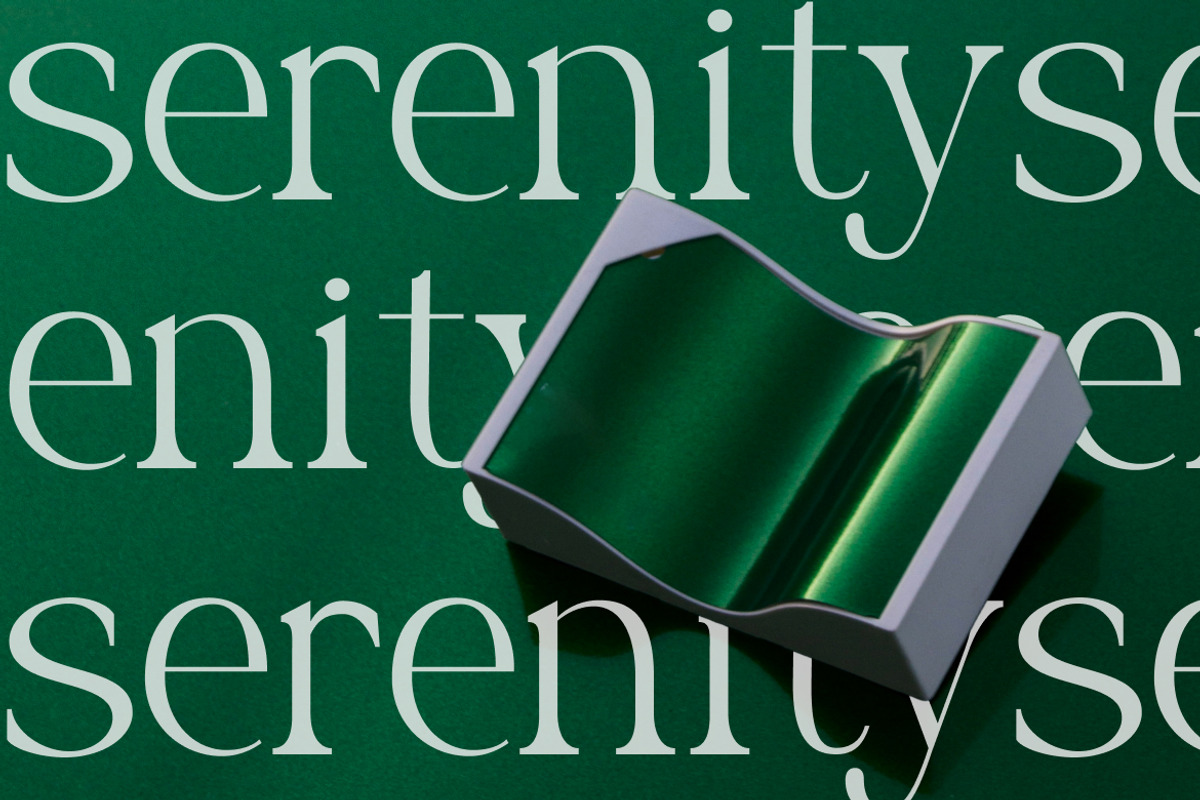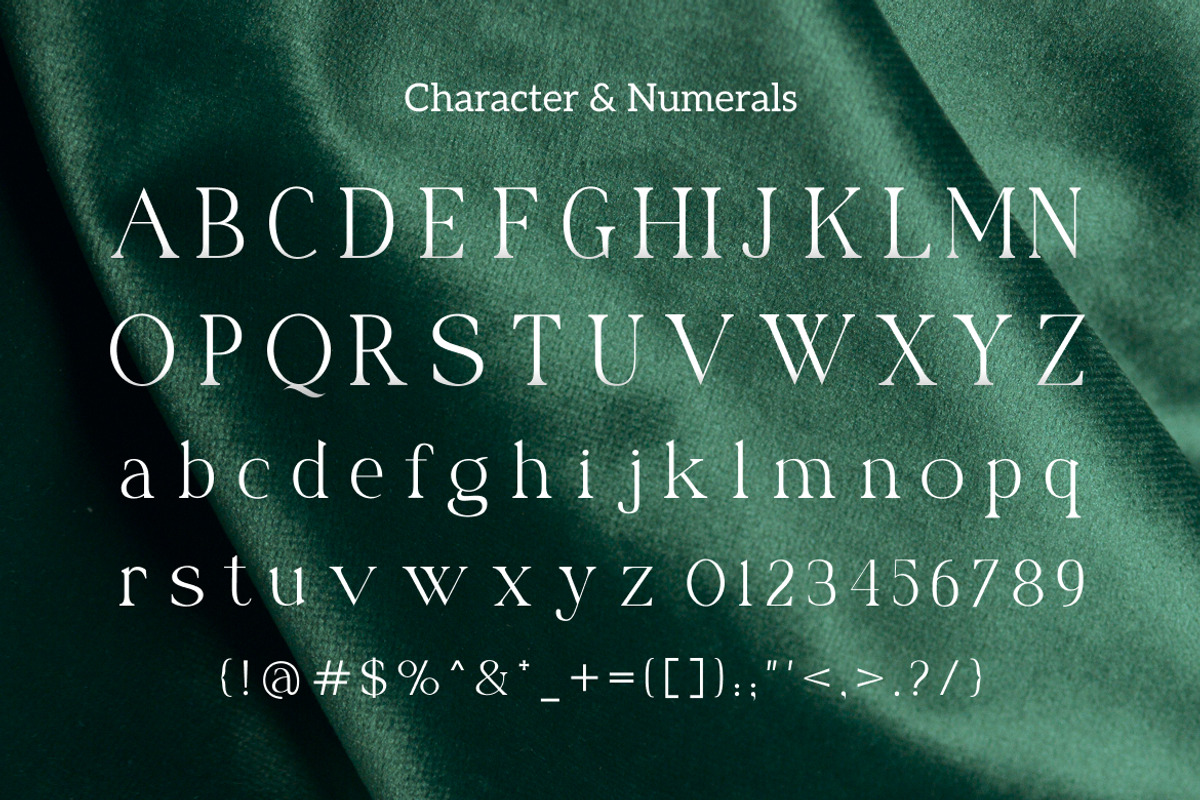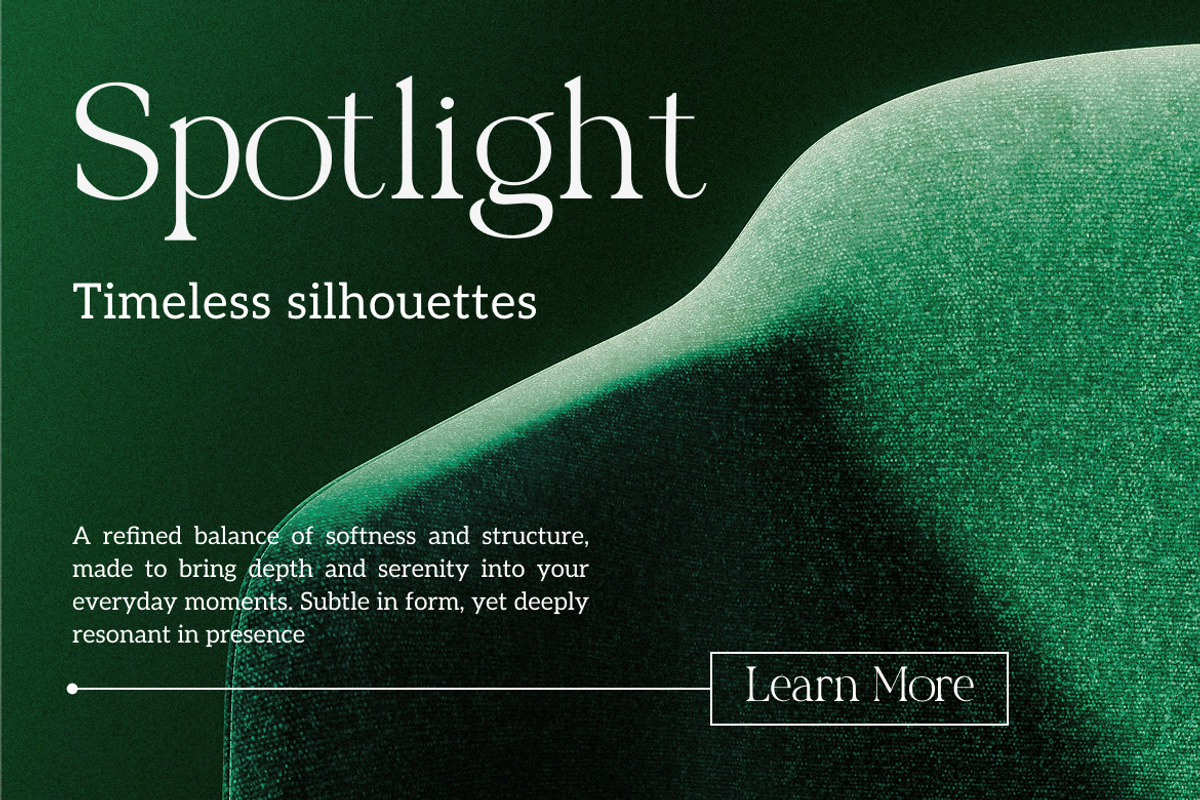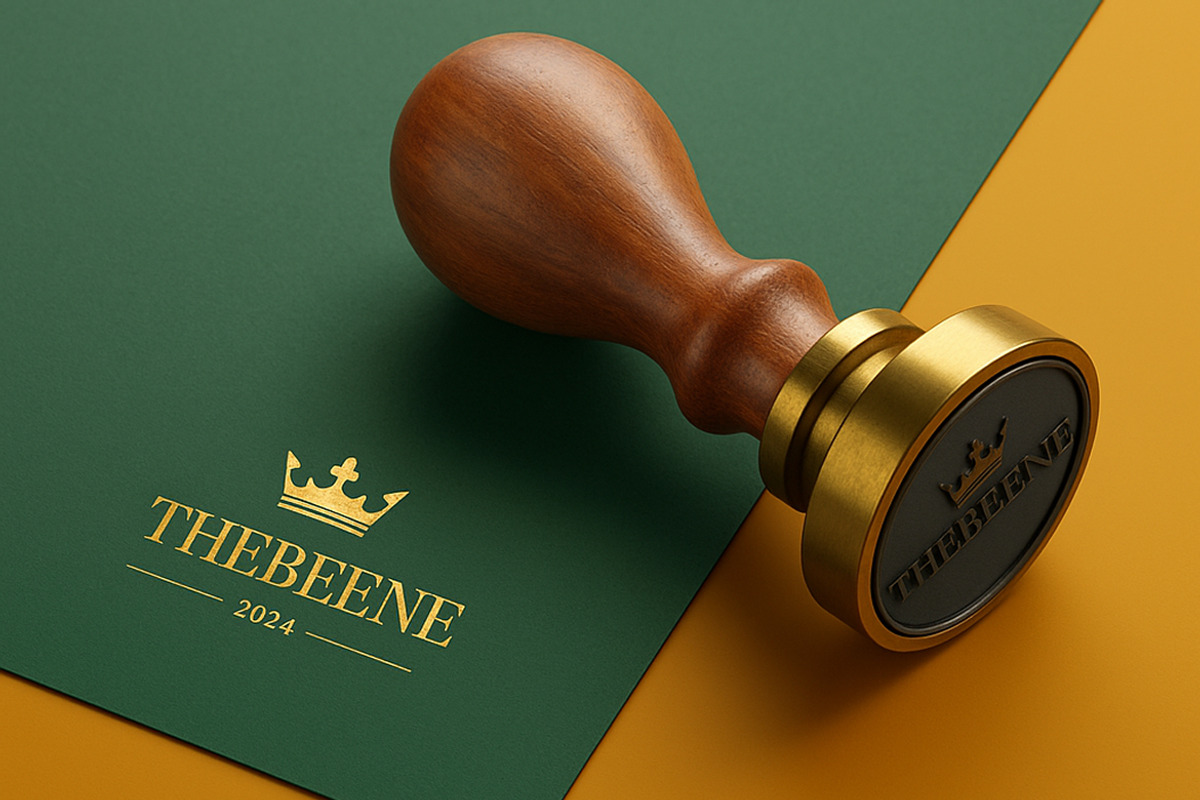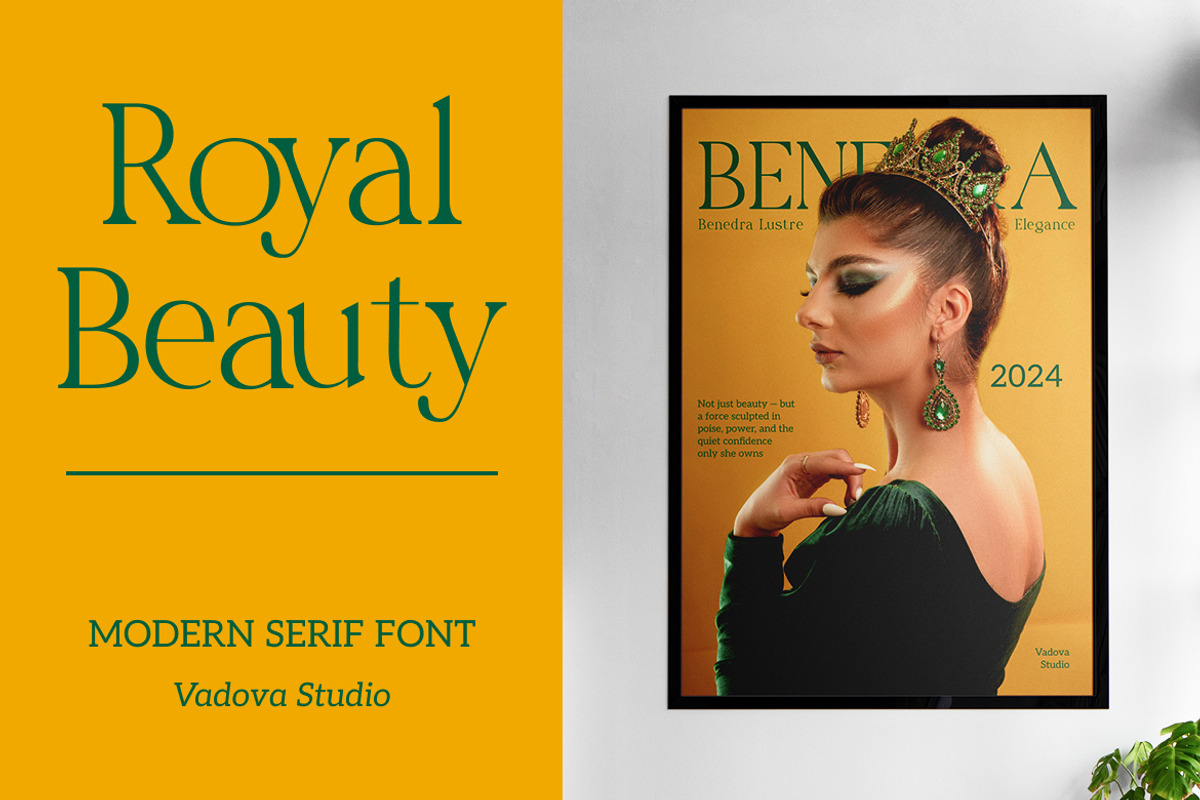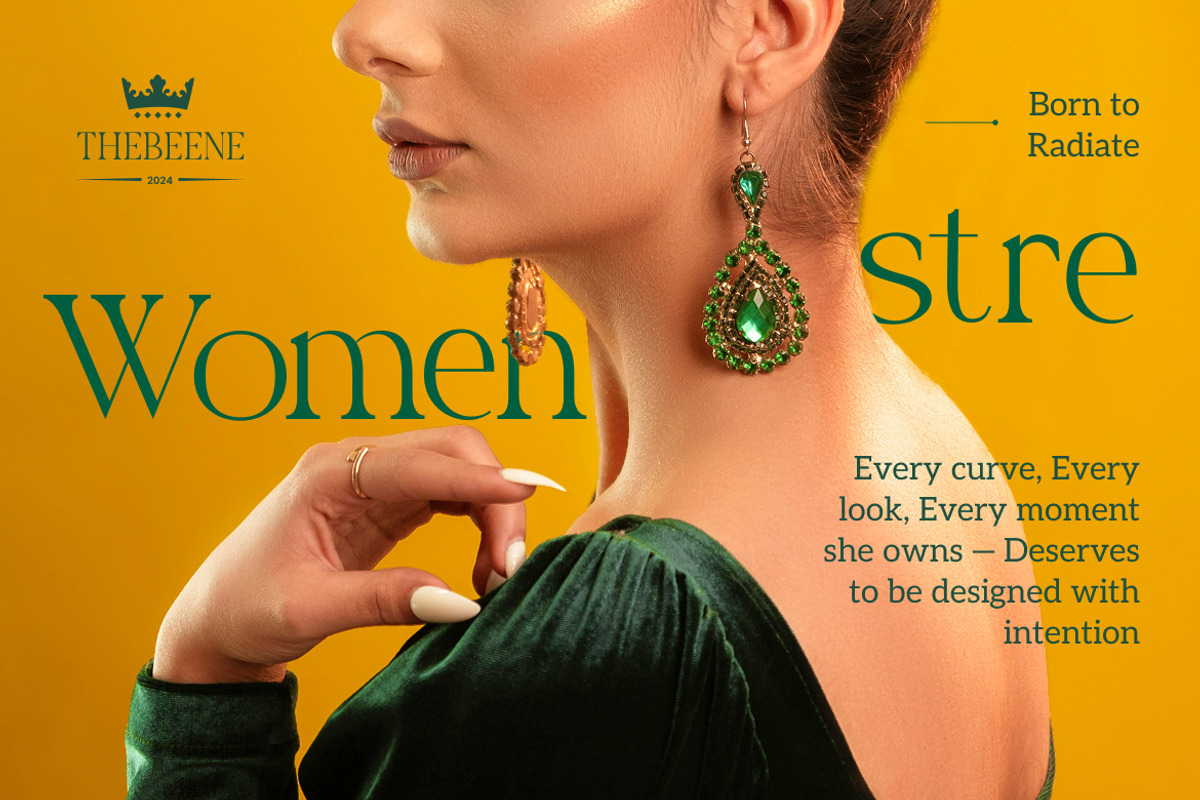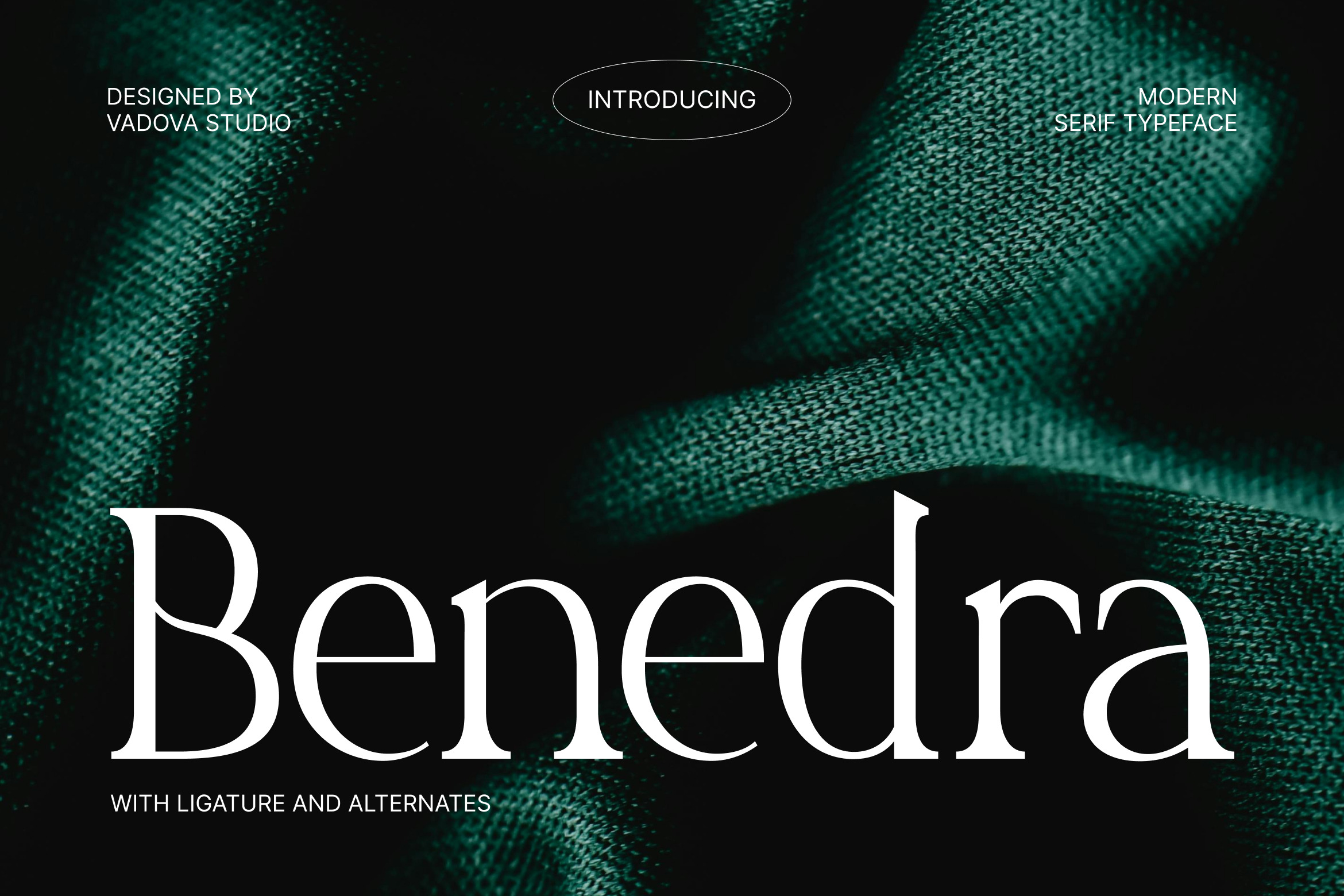
Benedra – Modern Serif Typeface
Benedra is a modern serif typeface designed with refined elegance and bold sophistication. Its high-contrast letterforms combine classic proportions with contemporary sharpness, while stylish ligatures and alternates add creative flair. The result is a versatile typeface that makes a strong visual impact across branding, editorial, and luxury design projects.
This font embodies both tradition and innovation—perfect for designers who want to communicate authority, refinement, and style. From editorial layouts to premium packaging and corporate identity, Benedra delivers timeless appeal with a modern twist.
Why Designers Love It:
High-contrast serif design with sharp, elegant details.
Stylish ligatures and alternates for creative flexibility.
Balanced proportions for strong readability and impact.
Perfect blend of timeless serif tradition and modern refinement.
Uppercase & Lowercase Letters
Alternates & Ligatures for stylistic variety
Best Use Cases:
Luxury Branding & Corporate Identity
Editorial & Magazine Covers
Fashion & Beauty Campaigns
Premium Packaging & Product Labels
Wedding Invitations & Stationery
Bold Headlines & Creative Advertising
Bring modern refinement and timeless elegance to your design projects with Benedra. More than just a serif, it’s a powerful tool for creating confident, stylish, and lasting impressions. Make Benedra your go-to serif for premium design.